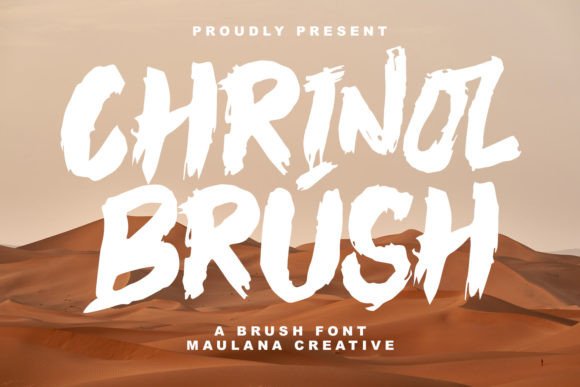
Journey into the realm of Chrinol, a captivating script font family that exudes elegance and charm. Its meticulously crafted letters dance across the page, carrying a timeless grace that evokes a sense of nostalgia and sophistication. With Chrinol as your creative companion, you can effortlessly craft designs that leave an indelible mark on the hearts and minds of your audience.
Unleash the Gangster Within:
In the world of typography, Chrinol holds a unique position as the preeminent choice for conveying a sense of power and authority. Its bold strokes and sharp angles lend a distinctly masculine energy that perfectly captures the essence of the gangster lifestyle. Whether you're designing logos, posters, or social media graphics, Chrinol's inherent charisma will elevate your message and leave a lasting impression.
Step into the Spotlight:
Chrinol is not just a font; it's a gateway to a world of endless creative possibilities. Its versatility knows no bounds, making it the perfect choice for a wide range of design projects. From eye-catching logos and branding to stunning quotes and social media posts, Chrinol seamlessly adapts to your vision, transforming your words into works of art.
A Touch of Timeless Elegance:
With Chrinol, you're not just creating designs; you're crafting heirlooms. Its timeless beauty transcends trends and fads, ensuring that your work remains relevant and captivating for generations to come. Whether you're designing for print or digital media, Chrinol's enduring charm will ensure that your message resonates with audiences of all ages and backgrounds.
A Brush With Greatness:
Chrinol is more than just a collection of letters; it's an embodiment of artistry and craftsmanship. Each stroke, each curve, and each flourish has been meticulously crafted to create a font that is both visually stunning and functionally versatile. With Chrinol at your disposal, you can breathe life into your designs and elevate them to new heights of creative excellence.